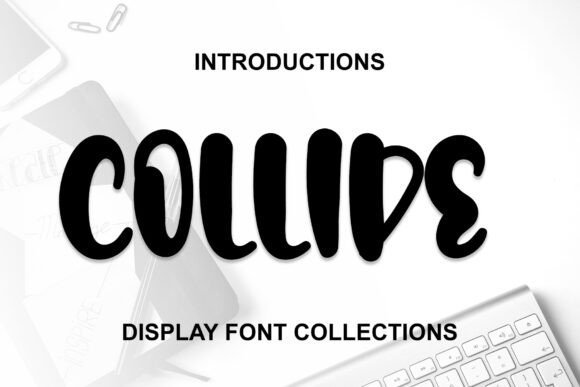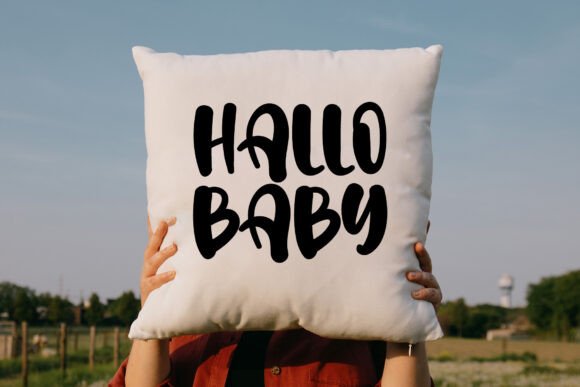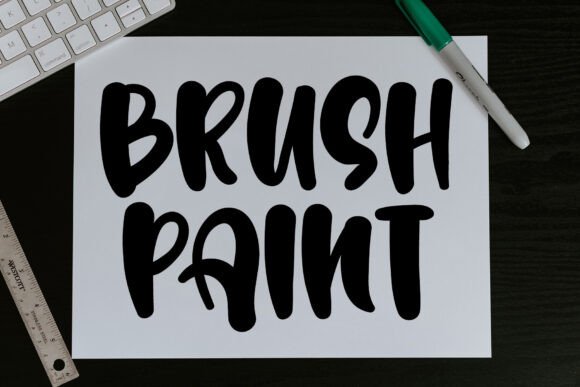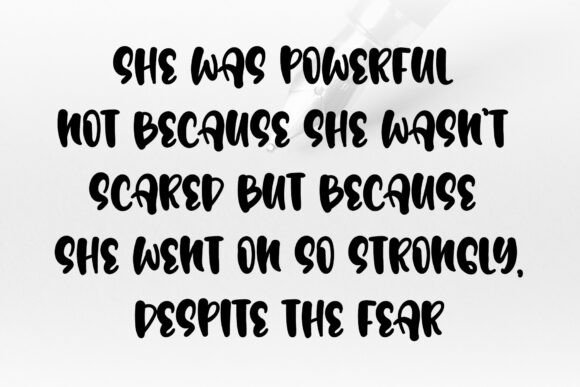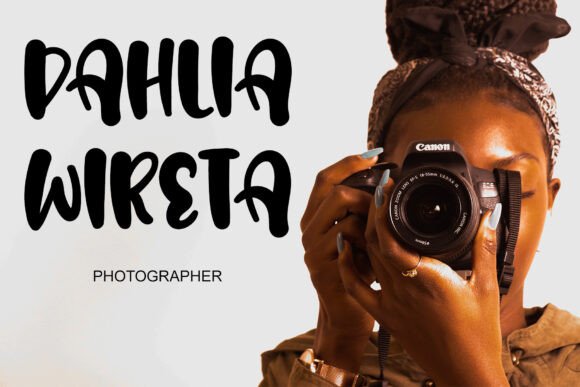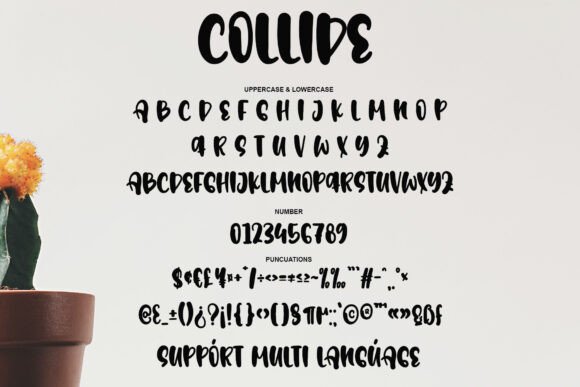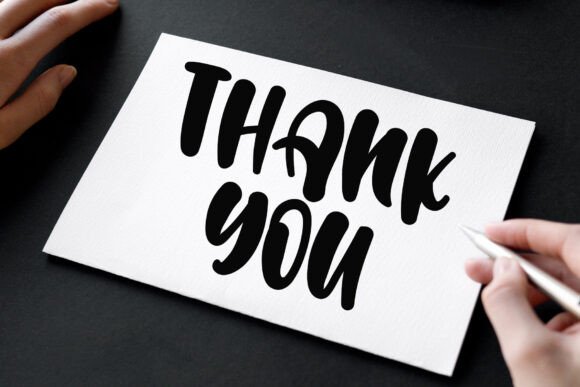
The Moment of Inspiration
Have you ever stumbled upon a font that sparks creativity and makes you want to run with it? For many designers, that moment comes when they discover the perfect font to match their vision. For me, it was the day I laid eyes on the Collide Font – a fun and quirky display font that screams ‘let’s have fun!’
Collide Font is more than just a font, it’s a key to unlocking a world of playful and imaginative designs. Perfect for use on cheerful topics, this font is a natural fit for children’s themed designs, especially when paired with bright and bold colors. Whether you’re working on a children’s book, a nursery decor project, or a fun-themed advertisement, Collide Font is the perfect partner in crime.
As a designer, having the right tools at your disposal is crucial to creating something truly special. The Collide Font is a valuable addition to any designer’s toolkit, offering a unique and eye-catching way to bring your ideas to life.
Key Features of Collide Font
- Font Family: Collide
- Unique Characteristic: Distinctive, handwritten feel with dynamic connections between letters
Collide Font Review
As a designer, I’ve had the chance to work with many fonts, but the Collide Font has left a lasting impression on me. Here’s my honest review.
- ✨ Unique design: The Collide Font boasts an eclectic mix of shapes and lines that set it apart from other fonts.
- ✨ Versatility: It can be used in a variety of contexts, from headings to body text, and even for digital displays.
- ✨ High legibility: Despite its unique design, the font is surprisingly easy to read, making it perfect for long-form content.
- ⚠️ Limited font weight options: While the font looks great, it’s a bit limited in terms of font weight options, which can make it harder to achieve the perfect contrast.
- ⚠️ Not ideal for small text: Due to its unique design, the font can become difficult to read when used in small text sizes.
Overall, I’m impressed with the Collide Font’s unique design and versatility. While it has some limitations, it’s definitely worth considering for projects where you want to add some visual interest. Just be mindful of the font weight options and text size limitations.
Tips for Getting the Most Out of Collide Font
To maximize the impact of the Collide font, try:
- Pairing it with bold, contrasting colors.
- Using it in creative, cursive-style text arrangements.
- Experimenting with different font sizes and styles.
The Collide font is ideal for:
- Creative headings and titles.
- Quirky, handwritten-style text.
- Adding a touch of whimsy to your designs.
Alternatives to Collide Font
Great Vibes Font is a beautiful, handwritten font perfect for creating a relaxed and casual atmosphere. It’s ideal for use in titles, headings, and other text elements where a touch of personality is needed. Compared to Collide Font, Great Vibes Font has a more fluid and organic feel, making it suitable for a wide range of design projects.
Alex Brush Font is a elegant, handwritten font that’s perfect for creating a sophisticated and luxurious feel. It’s ideal for use in titles, headings, and other text elements where a touch of elegance is needed. Compared to Collide Font, Alex Brush Font has a more refined and polished feel, making it suitable for high-end design projects.
Pacifico Font is a beautiful, handwritten font with a relaxed and casual feel. It’s ideal for use in titles, headings, and other text elements where a touch of warmth is needed. Compared to Collide Font, Pacifico Font has a more laid-back and beachy vibe, making it suitable for design projects related to travel, leisure, and relaxation.
Dancing Script Font is a elegant, handwritten font with a playful and whimsical feel. It’s ideal for use in titles, headings, and other text elements where a touch of fun and creativity is needed. Compared to Collide Font, Dancing Script Font has a more dynamic and expressive feel, making it suitable for design projects related to entertainment, fashion, and art.